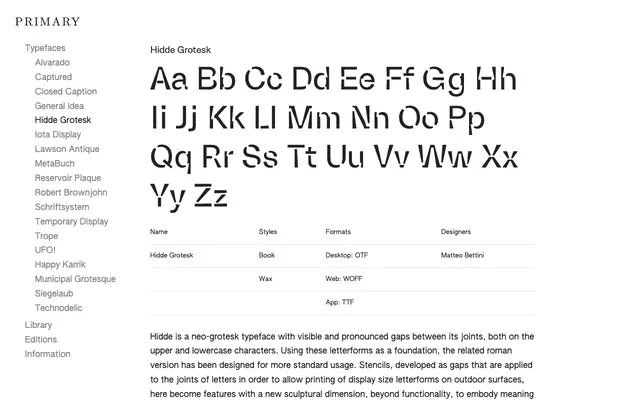
Hidde Grotesk
A neo-grotesque by Matteo Bettini where stencil-derived gaps at letter joints are treated as a formal design feature rather than a printing constraint.
Designed by Matteo Bettini, Hidde takes the structural logic of outdoor stencil printing and applies it permanently to the letterforms, leaving pronounced gaps at joints across both upper and lowercase characters. A companion Book style offers a more conventional roman for standard usage, while the Wax variant embraces the gaps as an expressive layer. The family covers extended Latin with 258 glyphs including lining figures, alternates and punctuation, and a limited 128-glyph desktop version is available free for non-profit and cultural projects.
Described explicitly as a neo-grotesk, with stencil-derived gaps at letter joints as its defining structural feature, placing it within the grotesque tradition but with a distinct sculptural intervention.